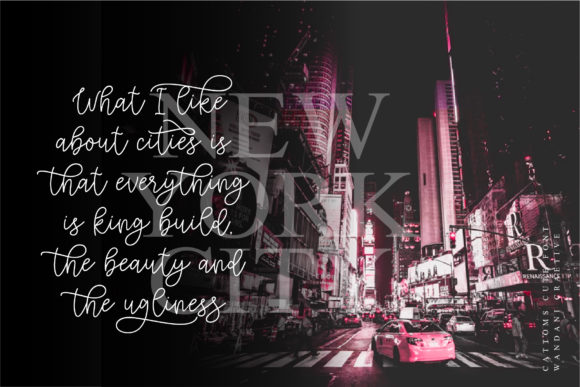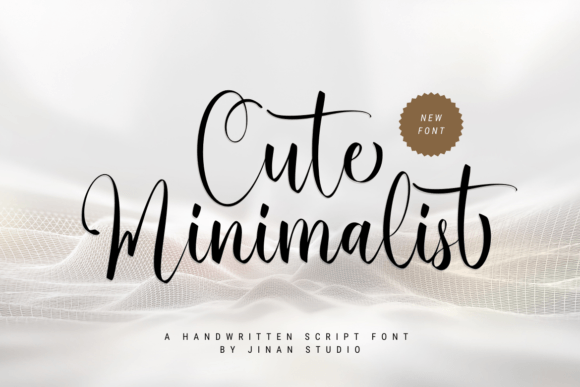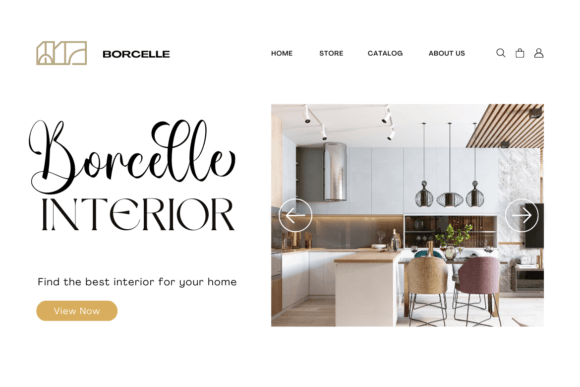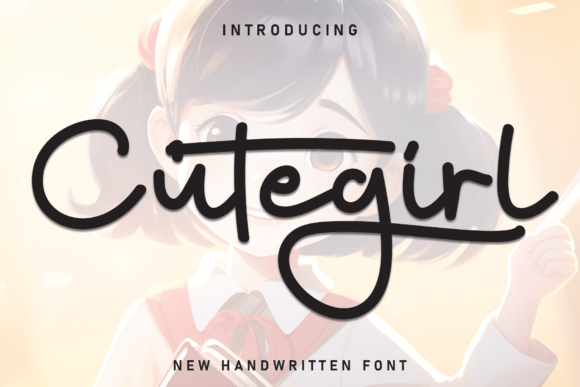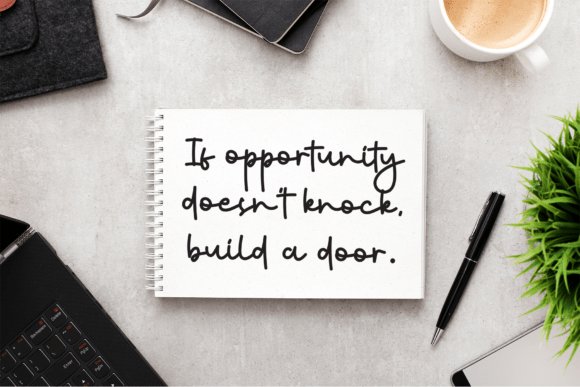
15 Best Cute Script Fonts For Creative Designs
Explore our curated collection of the 15 best cute script fonts for creative designs, specifically selected to bring charm and personality to your projects. Whether you are working on professional branding, playful merchandise, or heartfelt stationery, these cute script fonts offer the perfect blend of elegance and whimsy. Each of the 15 options in this list has been chosen as the best for its unique style, ensuring your creative designs stand out with an authentic and adorable touch.
Cute Script Font #1
If you are looking for a typeface that feels equally charming and elegant, Cute is a delightful choice. This script font looks stunning on wedding invitations, thank you cards, and greeting cards, providing that sought-after handwritten touch. It is also a fantastic option for professional branding, including logos and business cards, or for adding character to inspirational quotes.
What makes this script font stand out is its technical versatility and artistic detail:
• PUA Encoded: You can access all of the glyphs and swashes with ease, without needing specialized software.
• Dynamic Design: It features a varying baseline and smooth lines for a natural, flowing look.
• Creative Extras: Includes gorgeous glyphs and stunning alternates to help you customize every word.
Cute Handwriting Script Font #2
If you are looking for a typeface that radiates warmth and joy, Cute Handwriting is a bubbly handwritten script font that feels like a playful embrace for your designs. Inspired by the charm of spontaneous sketches, this font captures the essence of carefree creativity and adds a distinct personality to any project. It features rounded edges and gentle curves that make every letter feel approachable and sweet.
As a designer, I find this script font is more than just a tool—it is a storyteller that celebrates the beauty of handwritten expression. It is particularly effective for:
• Children’s Projects: Bringing stories to life in books and educational designs.
• Celebrations: Adding a cheerful touch to party invitations and greeting cards.
• Social Media: Making content pop with an engaging and heartfelt vibe.
• Family Branding: Ideal for toy packaging, parenting blogs, and nurturing brand identities.
• DIY Crafts: Perfect for journals, stickers, and personal scrapbooking projects.
Despite its informal and playful rhythm, Cute Handwriting remains clear and readable at any size, from bold headlines to body text. Its organically varied strokes ensure your work feels human and relatable rather than sterile. If you want your words to “smile,” this script font is the perfect addition to your creative toolkit.
Cute Candy Script Font #3
If you are looking for a versatile typography solution, Cute Candy is a lovely duo font that combines a clean sans serif with a charming script font. This combination makes it incredibly adaptable, allowing it to fit a wide pool of designs and elevate them to the highest levels of professional quality. It is the kind of typeface that breathes energy into your favorite creative ideas, making them truly come alive.
I find this script font duo to be an excellent choice for:
• Playful Branding: The mix of styles is perfect for creating dynamic and modern logos.
• Social Media Content: Use the script for emphasis and the sans serif for clarity in your posts.
• Product Packaging: Ideal for items that need to feel friendly, approachable, and high-energy.
• Greeting Cards: Adds a personal, handwritten touch that feels both professional and warm.
Whether you are working on a digital project or a print layout, adding Cute Candy to your toolkit ensures you have the flexibility to create designs that are both stylish and expressive.
Cute Vibes Script Font #4
If you are looking for a typeface that radiates charm and energy, Cute Vibes is an adorable and playful choice. While it leans toward a friendly sans serif structure, it carries the whimsical energy of a script font, making it a fantastic addition to any creative library. It is specifically designed to bring a sense of joy and lightheartedness to your projects.
This script font-style typeface is exceptionally well-suited for hands-on crafting and physical products, including:
• Crafting Projects: Works great for Cricut and silhouette cutting.
• Apparel & Merchandise: Ideal for vibrant T-shirts, mugs, and sublimation designs.
• Textile Art: A wonderful choice for embroidery patterns that need a soft, rounded look.
• Inspirational Quotes: Adds a friendly and approachable touch to social media graphics and posters.
Whether you are working on personal DIY projects or professional merchandise, Cute Vibes provides the versatility and playful spirit needed to make your creative ideas pop.
Cute Lipstick Script Font #5
If you are looking for a typeface that is both sweet and playful, Cute Lipstick is a delightful handwritten choice. This script font features a unique design where the uppercase and lowercase letters are the same height, creating a balanced and “super cute” aesthetic that stands out from more traditional styles. Despite its artistic flair, it remains perfectly easy to read, making it a reliable option for various creative tasks.
Milton Keynes is the perfect addition to your collection when you need a script font that combines a contemporary aesthetic with the warmth of a handmade touch.